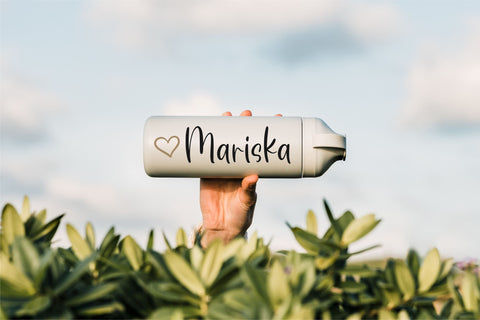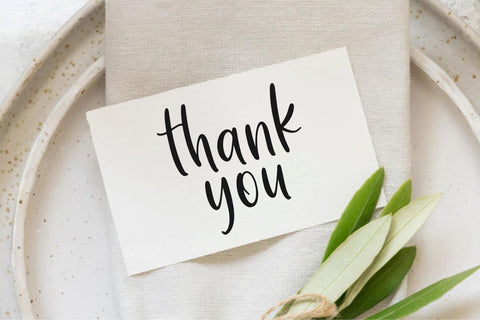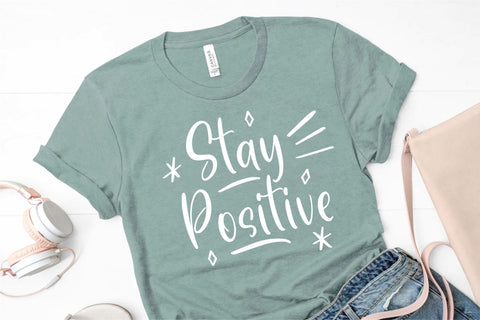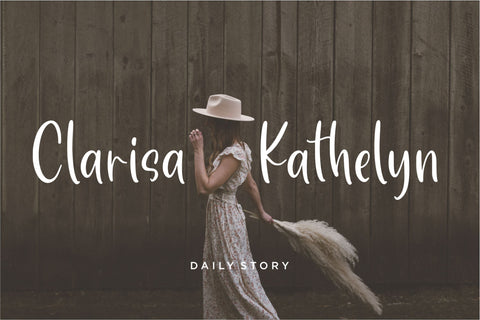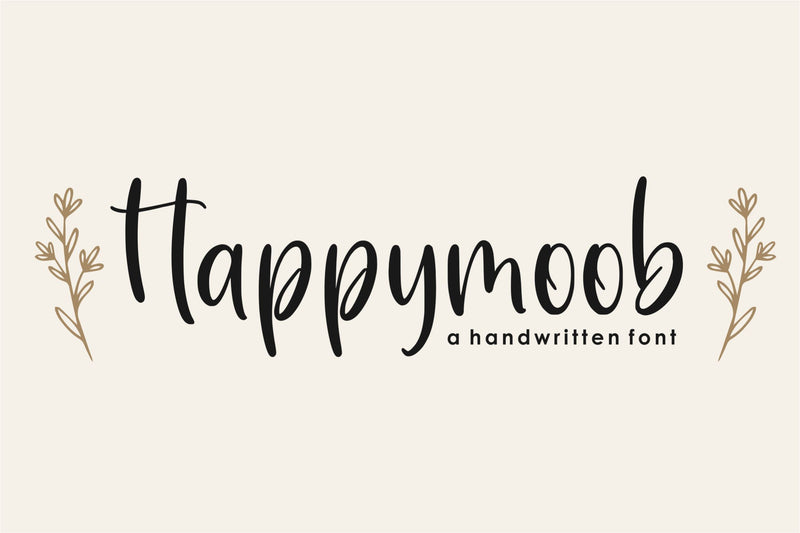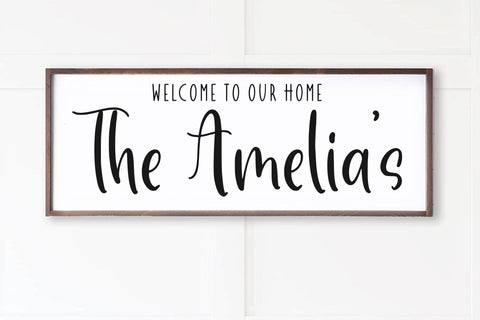
Happymoob
Proudly Present, Happymoob
Happymoob is a Handwritten Font
Happymoob is perfect for product packaging, branding project, megazine, social media, wedding, or just used to express words above the background.